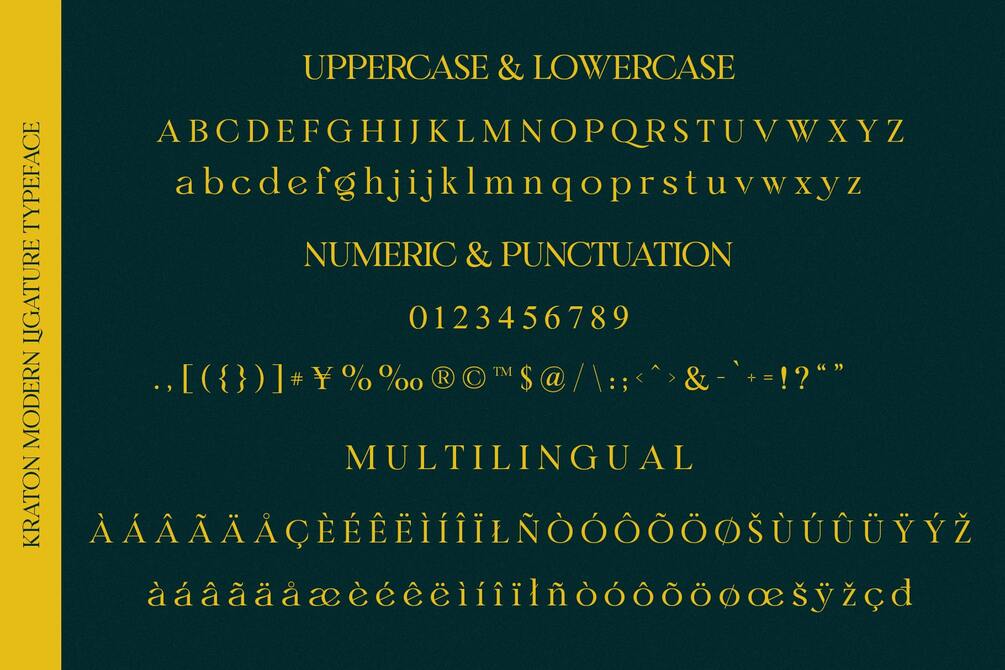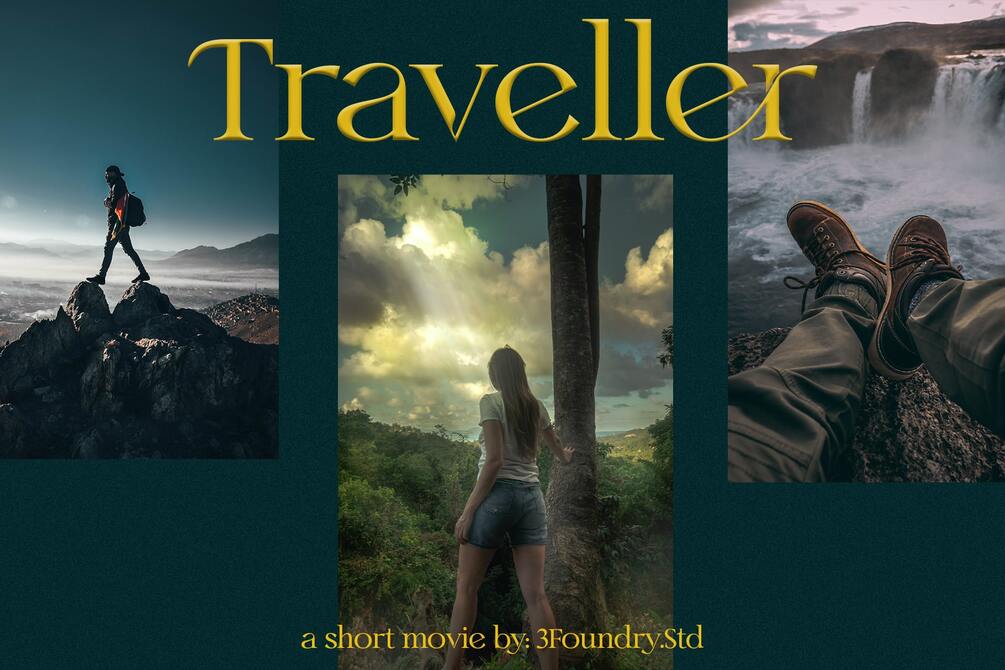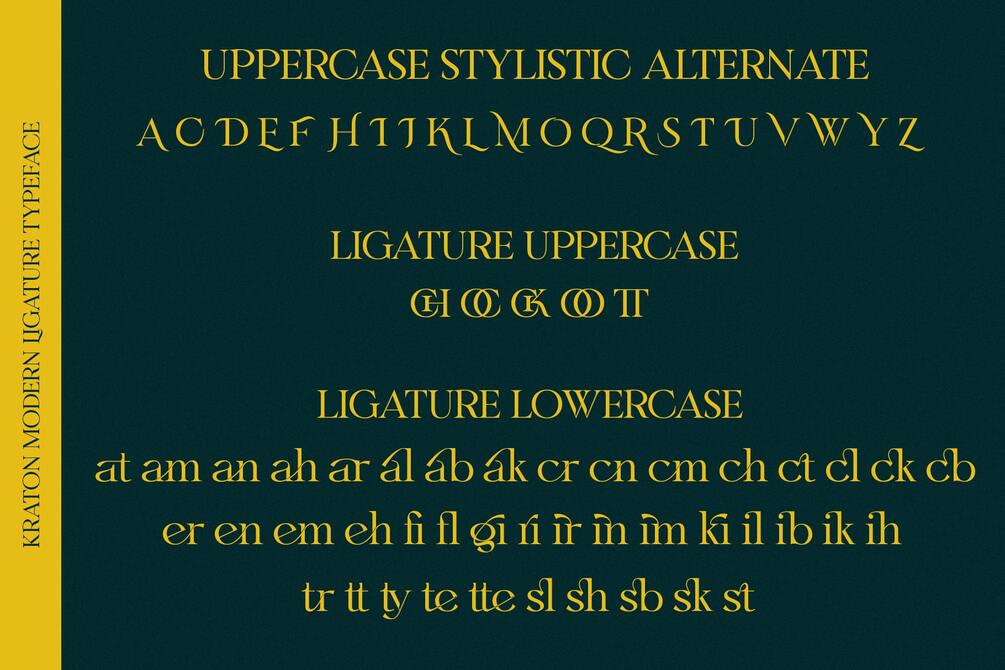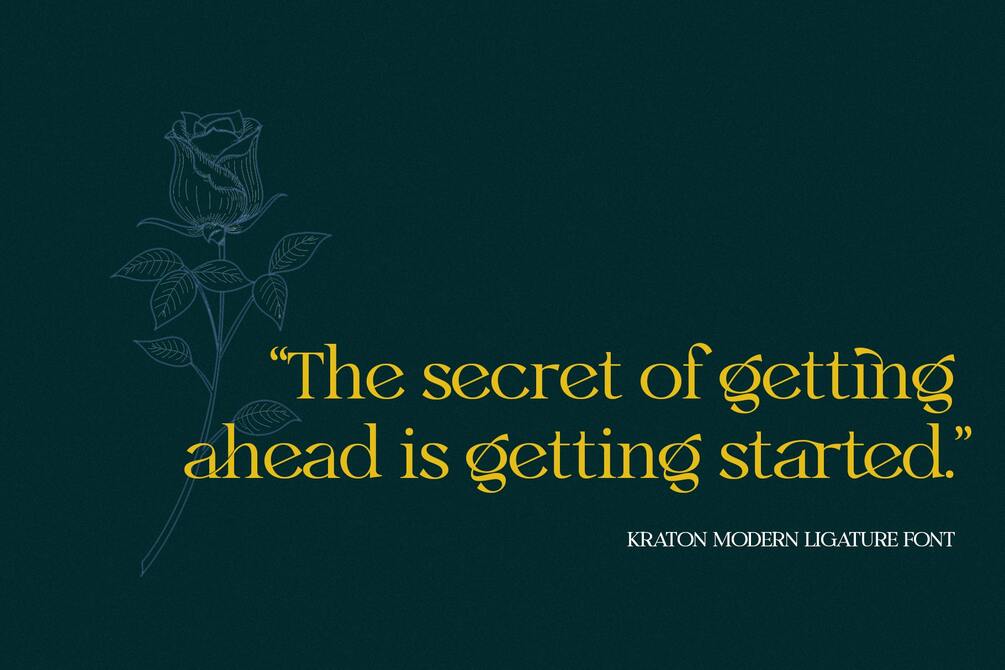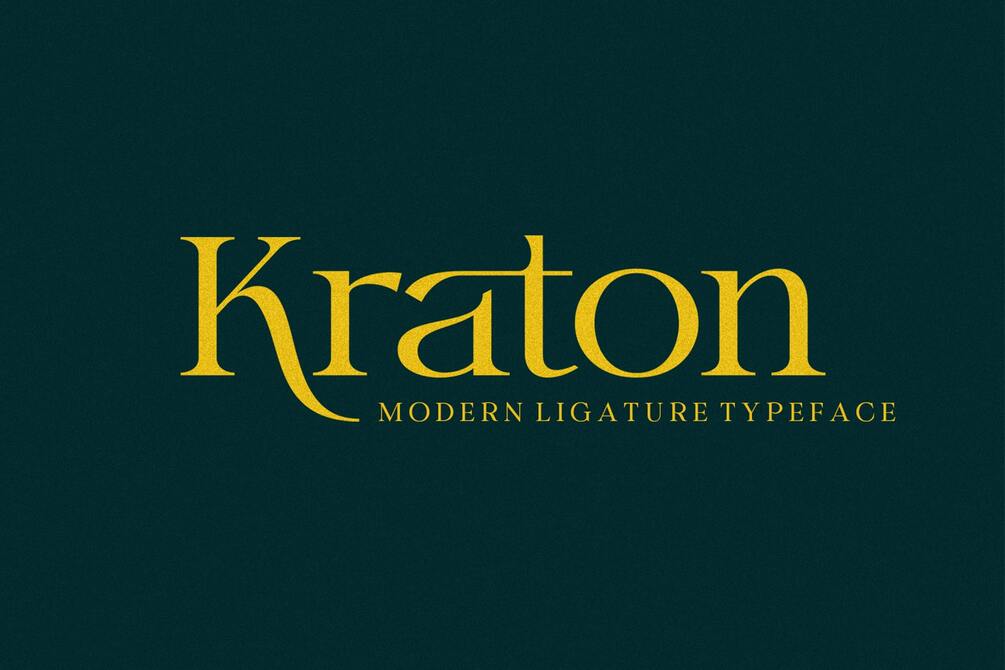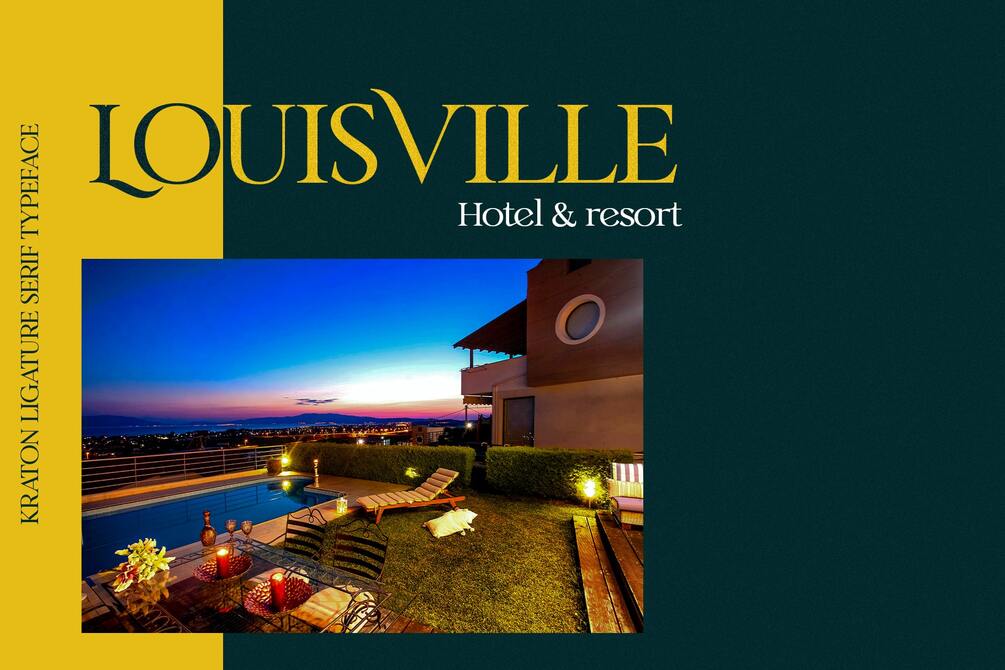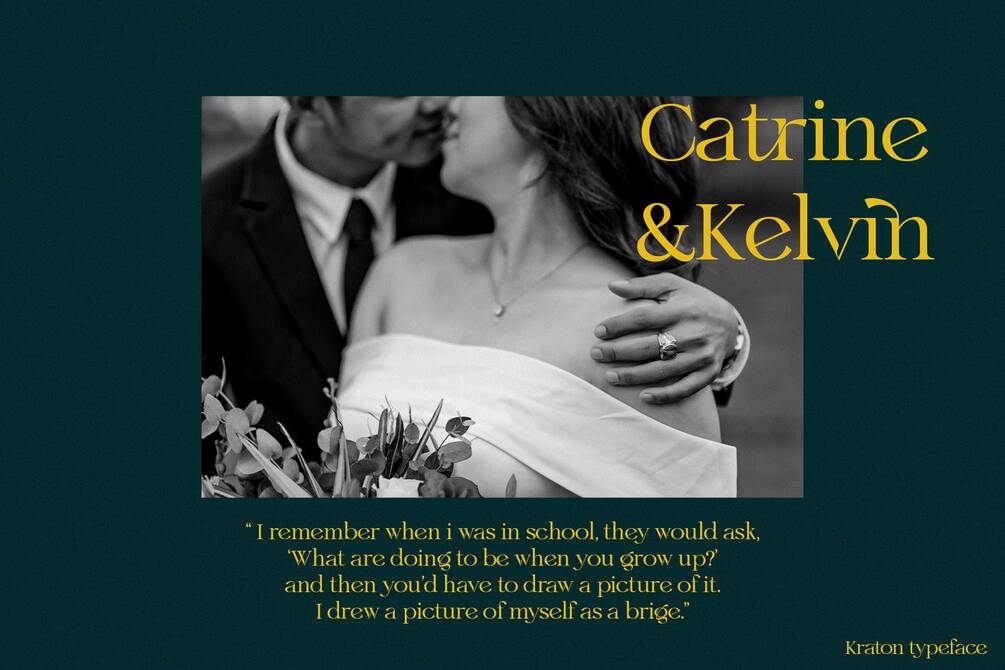
Kraton
This is a font with a classic modern style, of course it will really give a different nuance to each of your products and works, with an additional touch of ligature on the glyph will make your work easier, and most importantly, the price is affordable, but has good quality.
• Uppercase
• Lowercase
• Numeral
• Functional
• Multilingual
• Stylistic
• Alternates Character